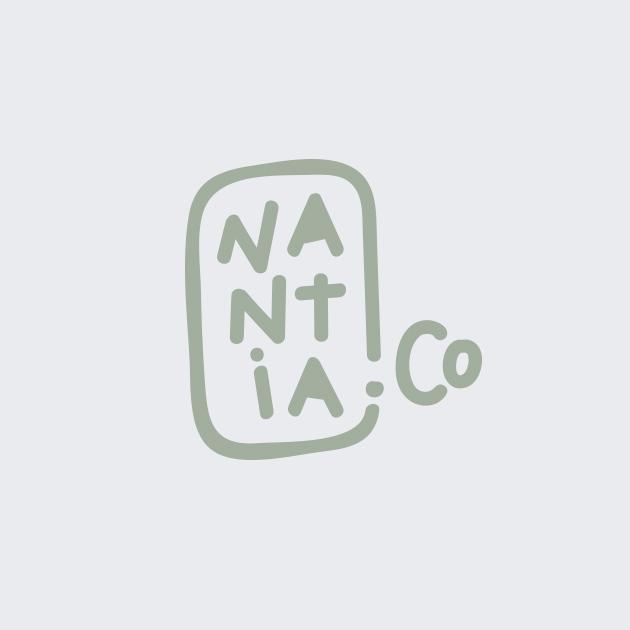
The Nadirii is a handcrafted typeface with a nostalgic touch. It comes in a regular and bold version. The crafty feel of this font is pairing perfectly with illustrations and book covers.